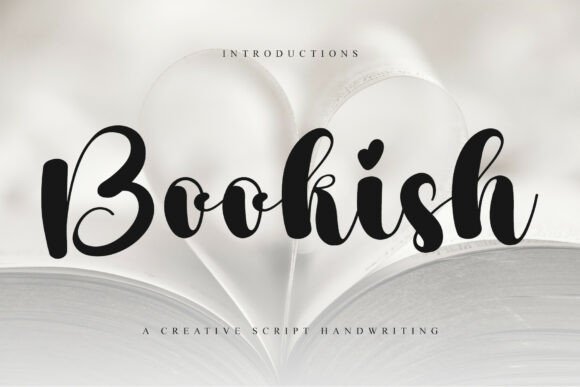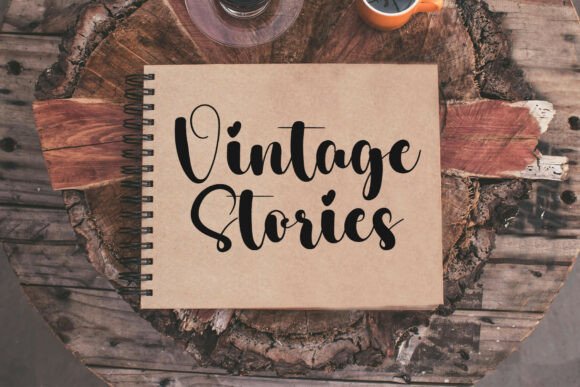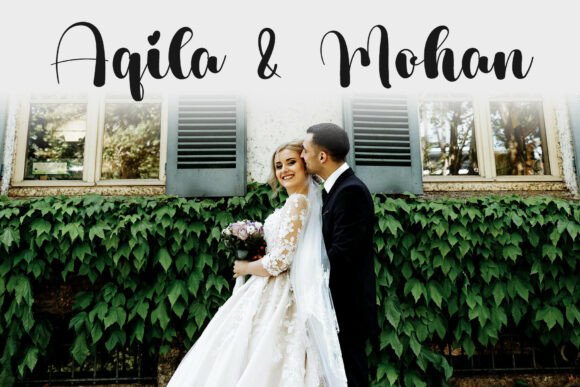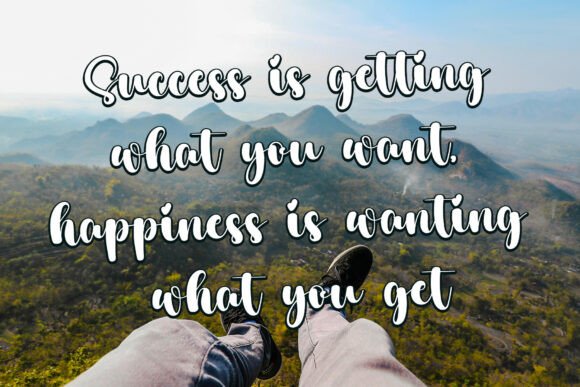
Bookish Font
About the Bookish Font
The wait is over! The incredible Bookish Font is now available for your design toolkit. Bookish is a font that exudes class, combining the beauty of script handwriting with a bold and timeless vintage touch. With its fluid strokes, graceful curves, and dynamic flow, this font is perfect for creating a sophisticated yet powerful impression. Whether you need a stylish signature, branding design, or nostalgic vintage aesthetics, Realistic Vintage delivers elegance and uniqueness effortlessly.
Bookish excels in headlines, short text blocks, and branding applications where a touch of vintage elegance is desired. It’s ideal for logos, short taglines, and packaging design for high-end products or boutique brands. However, its ornate nature makes it less suitable for body text or UI elements; the intricate details would hinder readability in longer passages.
Its personality is sophisticated and slightly playful, conveying a sense of classic charm without being overly formal. This makes it a strong choice for projects related to books, stationery, cafes, or artisanal goods.
Pairing Bookish with a clean sans-serif like Lato or a geometric sans-serif like Futura would provide a modern contrast and improve readability in supporting text. For a more traditional feel, consider pairing it with a classic serif like Garamond or Times New Roman.
Bookish Font Example